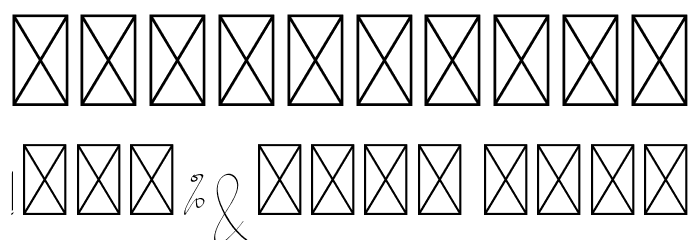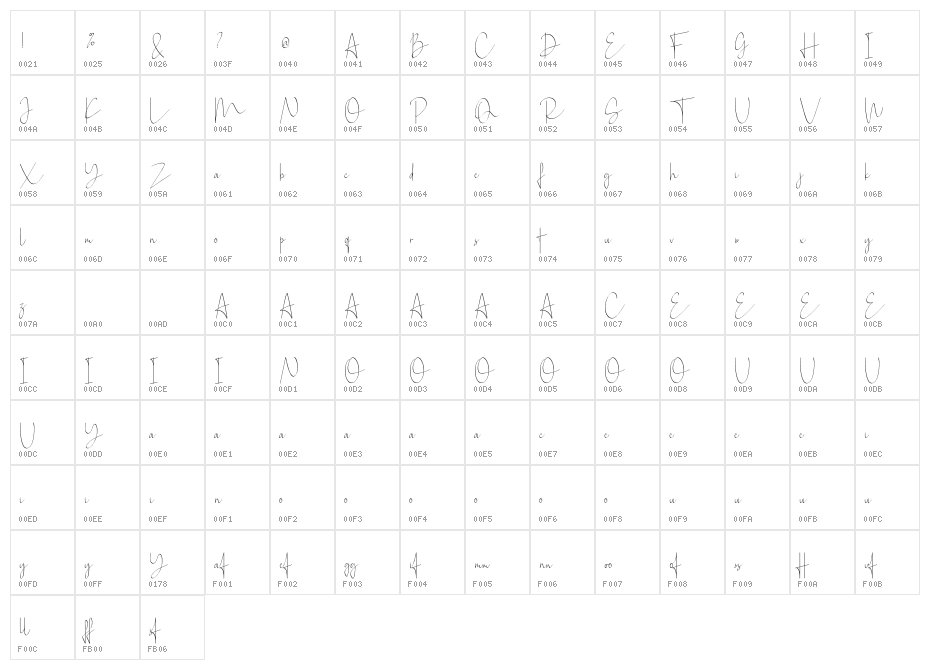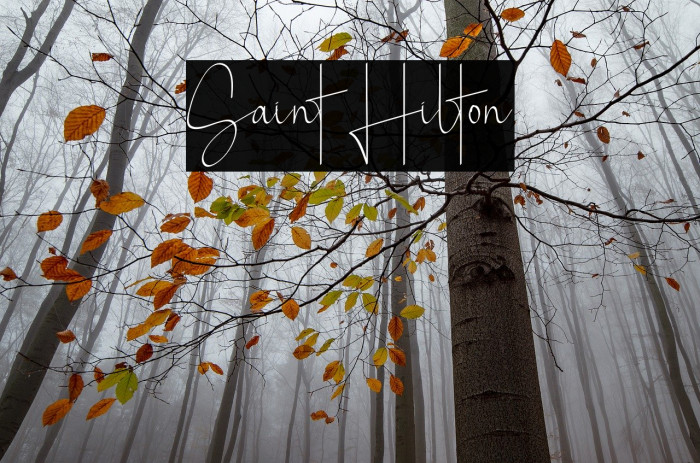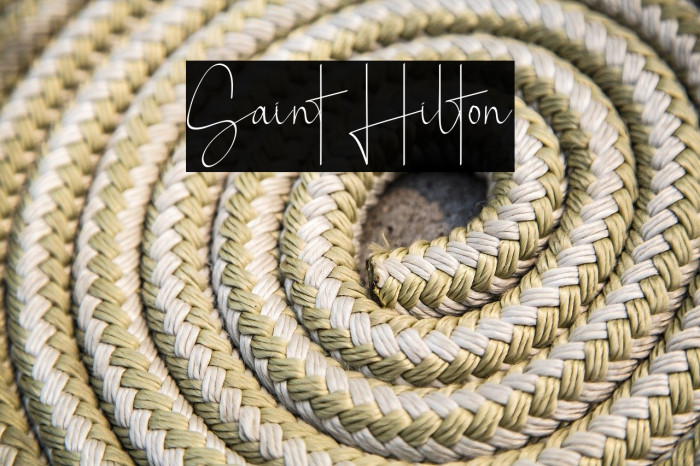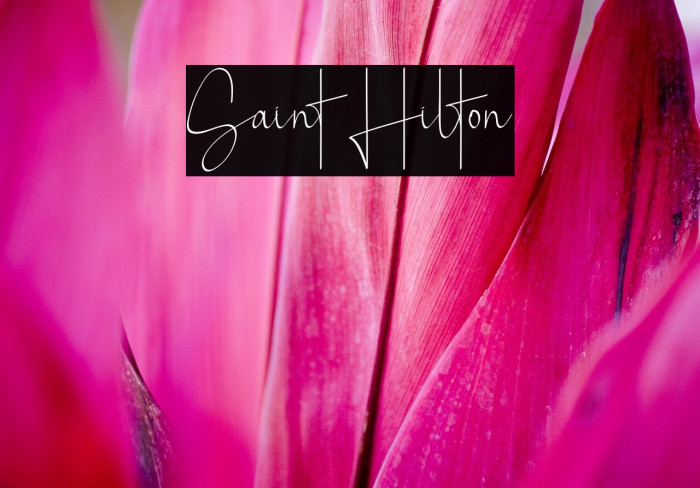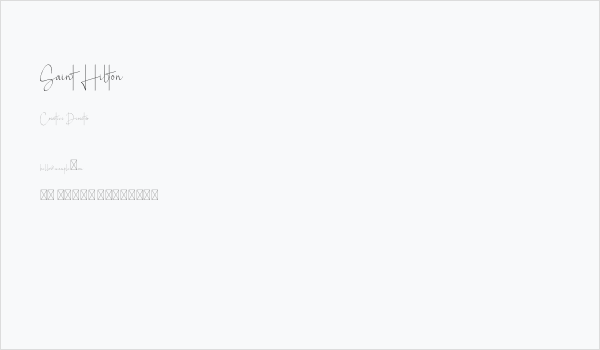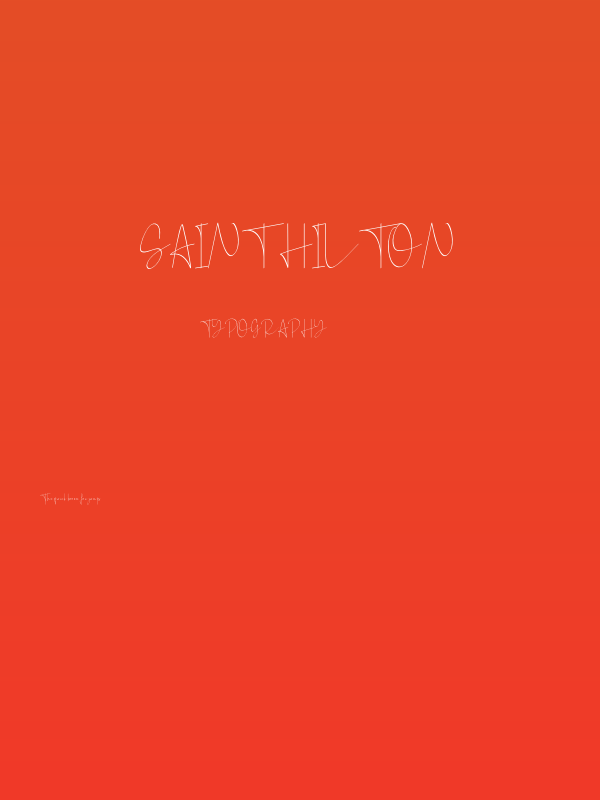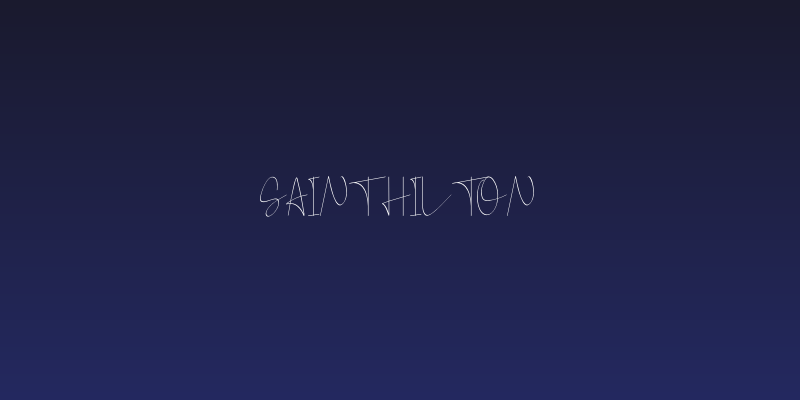
Saint Hilton Font
Saint Hilton Description
This font features an elegant and flowing script style, characterized by its thin, delicate strokes and graceful curves. The uppercase letters exhibit a sophisticated flair with extended ascenders and descenders, creating a sense of movement and fluidity. The lowercase letters maintain a consistent style, complementing the uppercase with their own subtle flourishes. The overall design is airy and light, making it suitable for projects that require a touch of elegance and refinement. The font's unique character is further enhanced by its distinctive special characters, which add a playful yet classy element to the overall aesthetic.